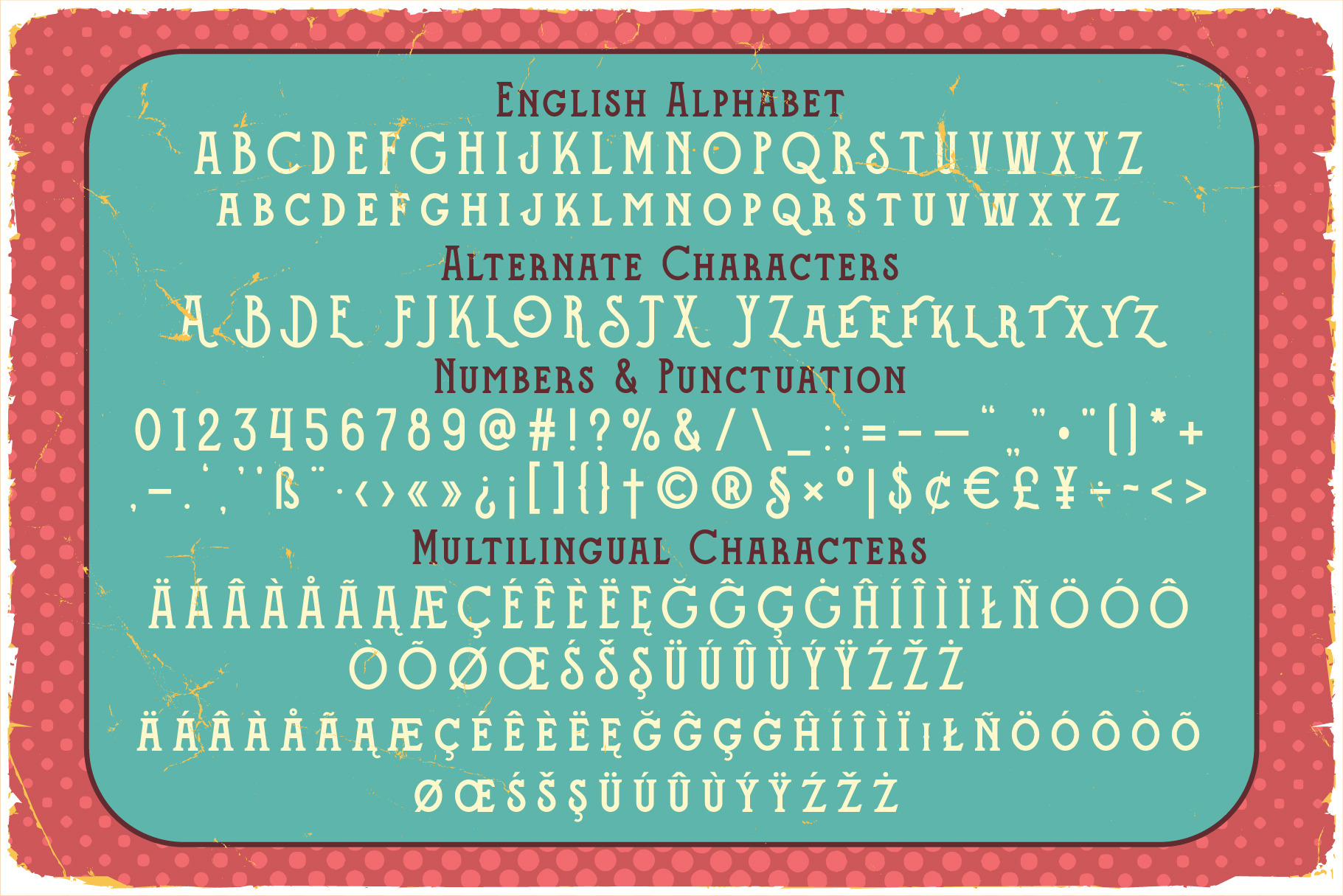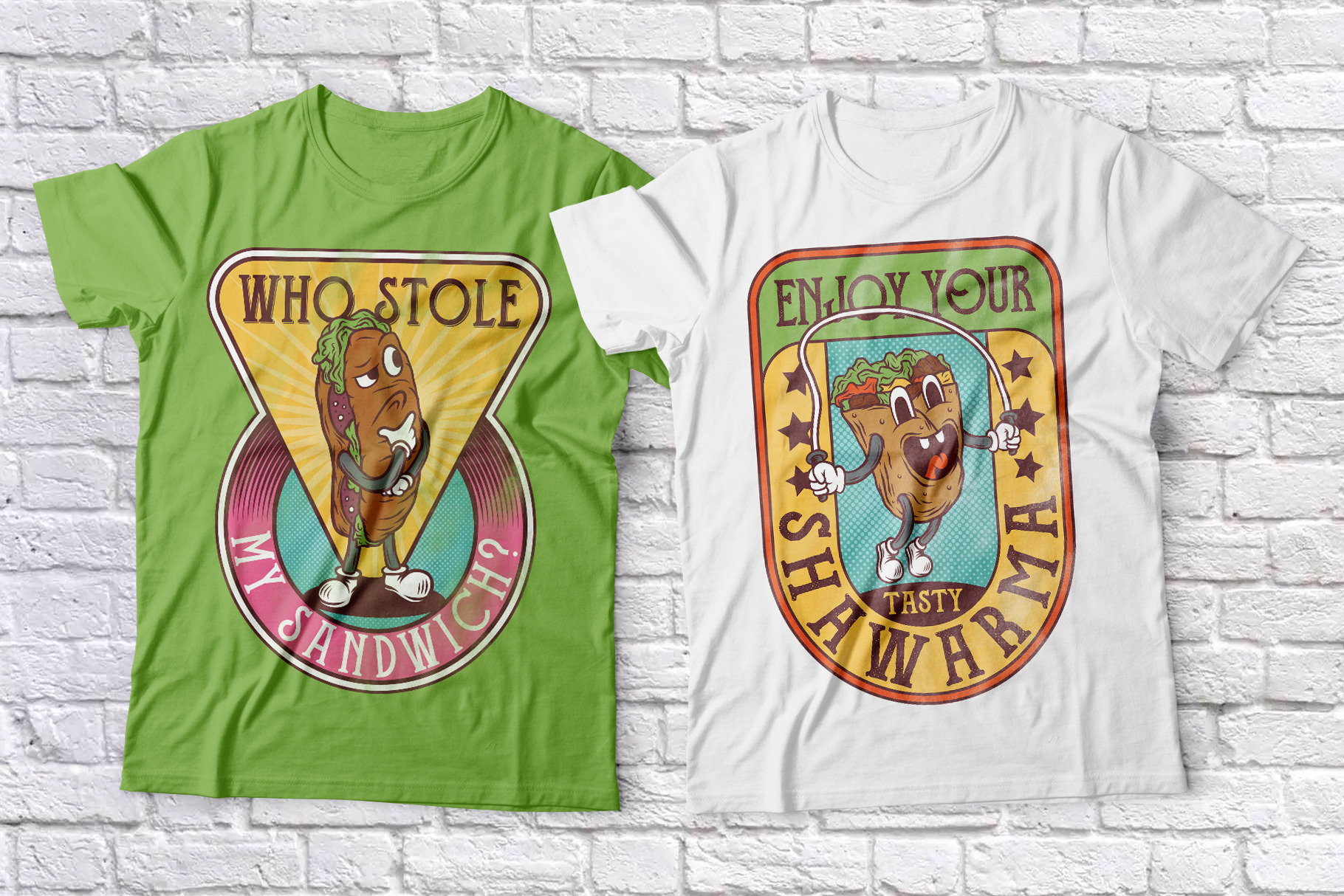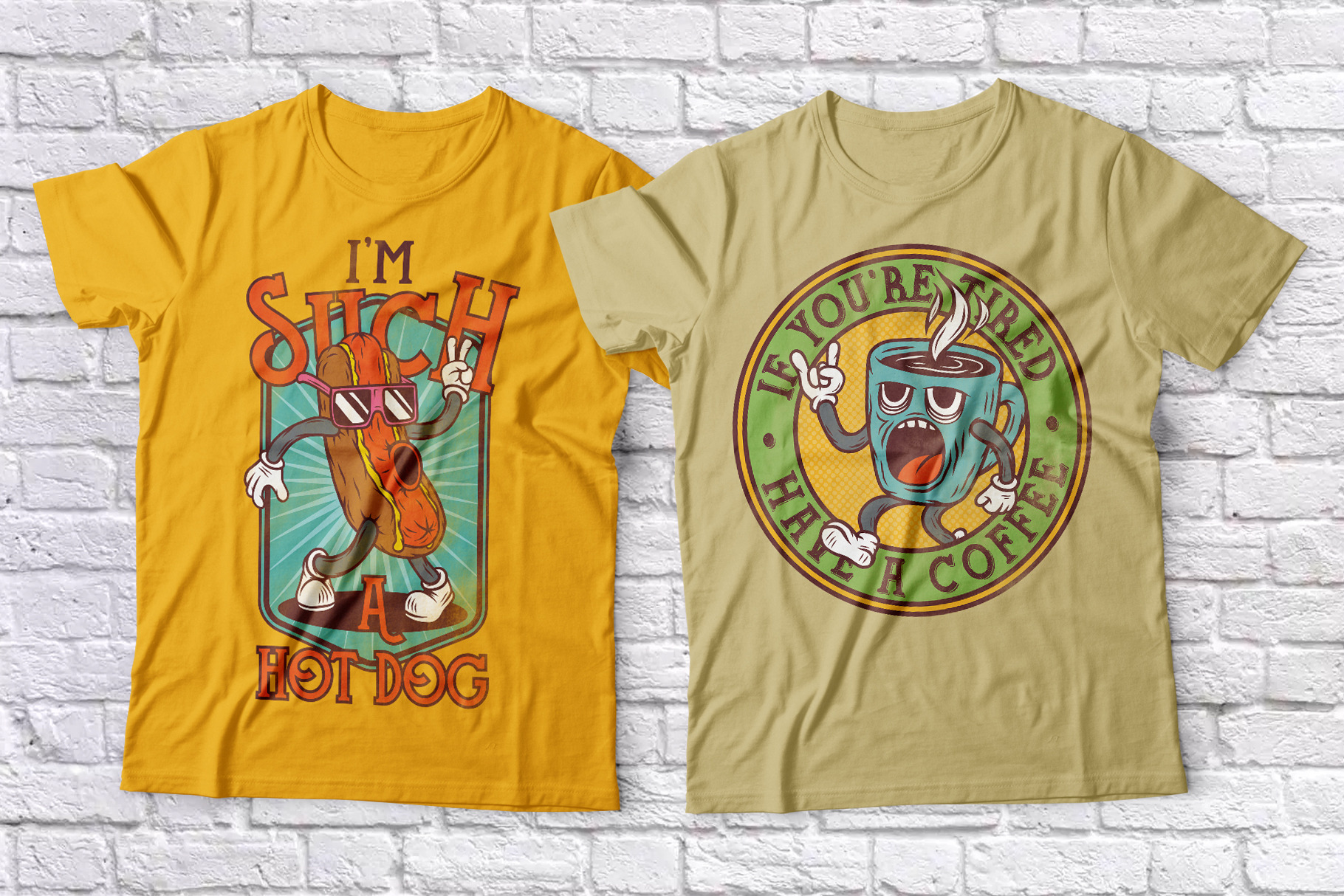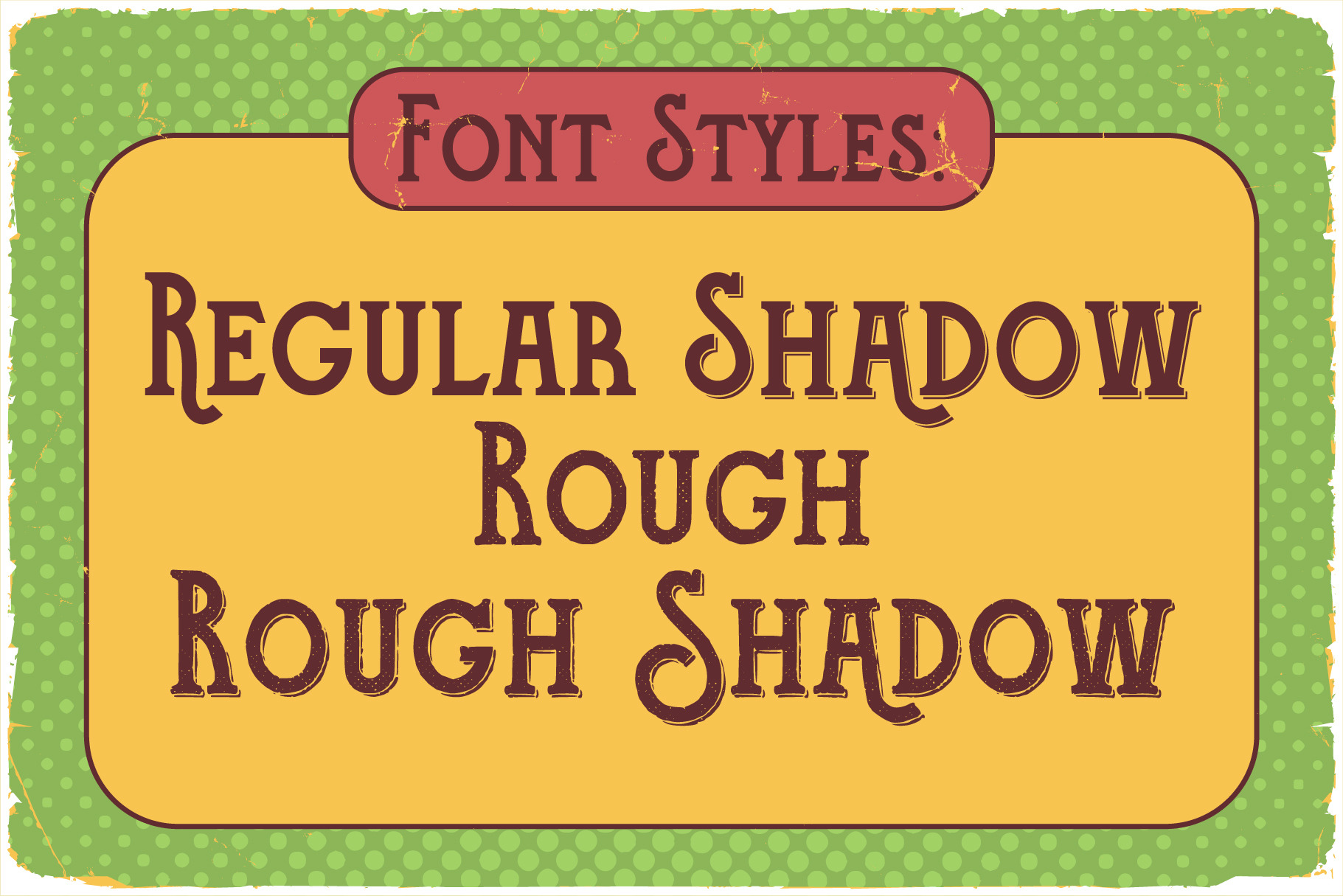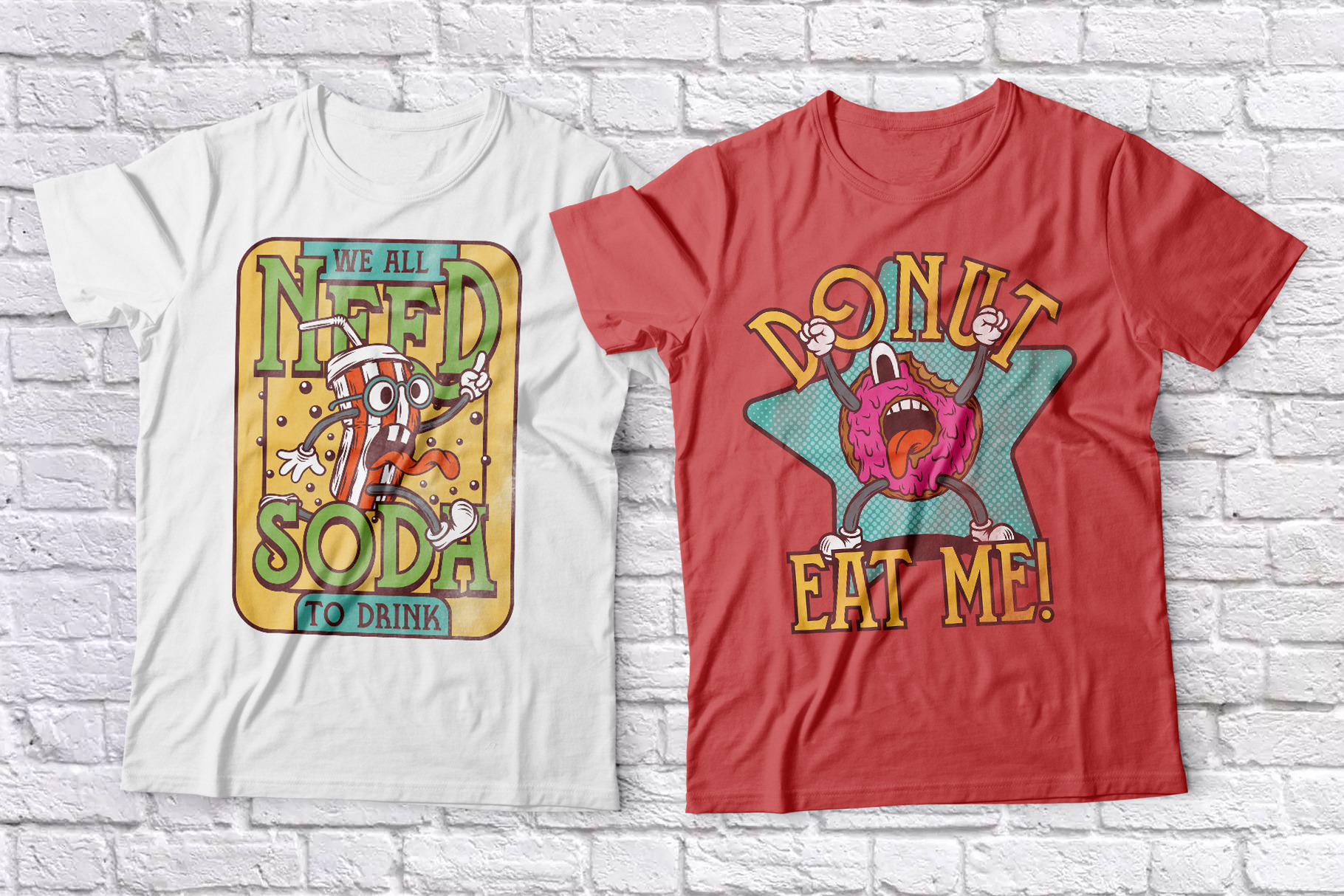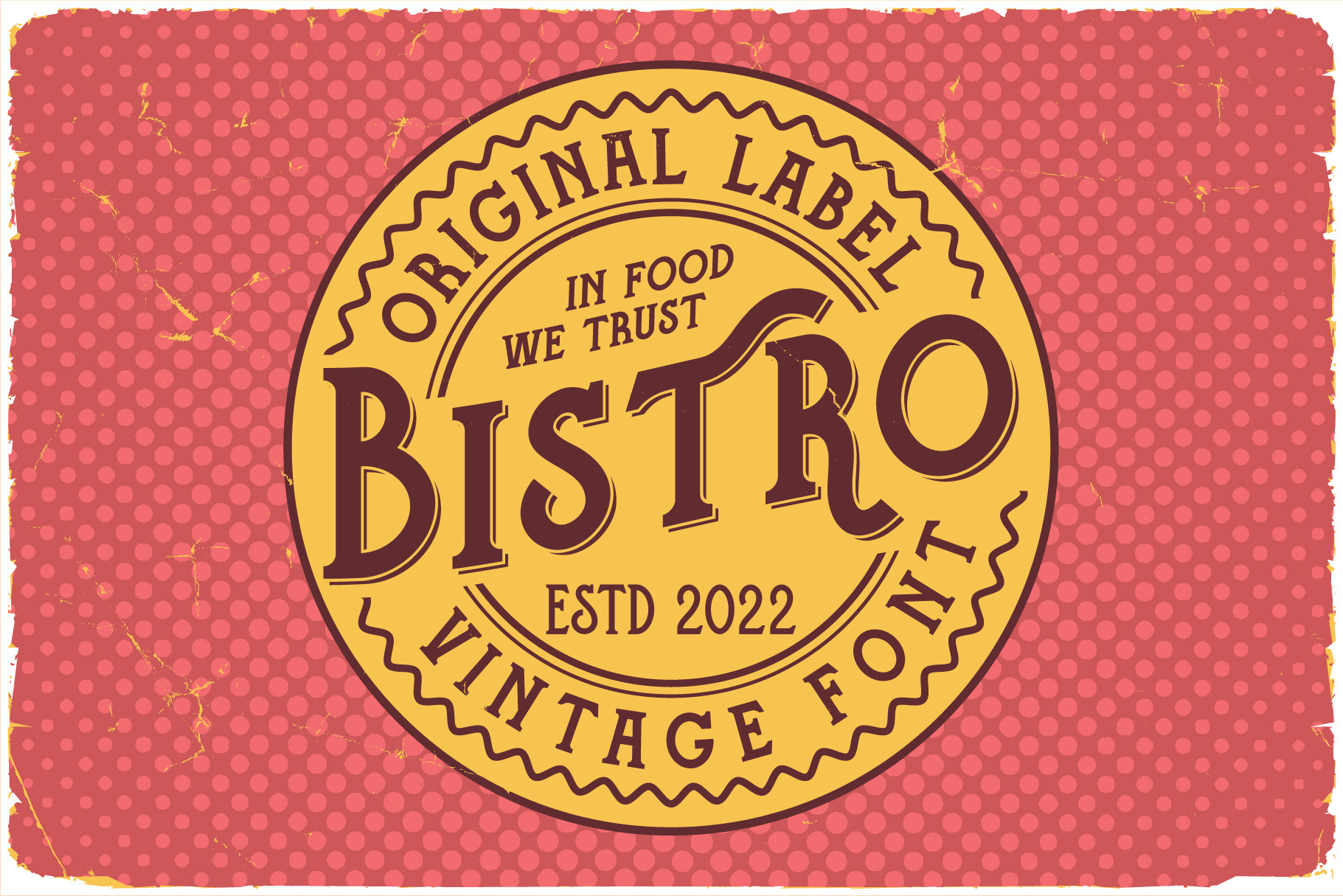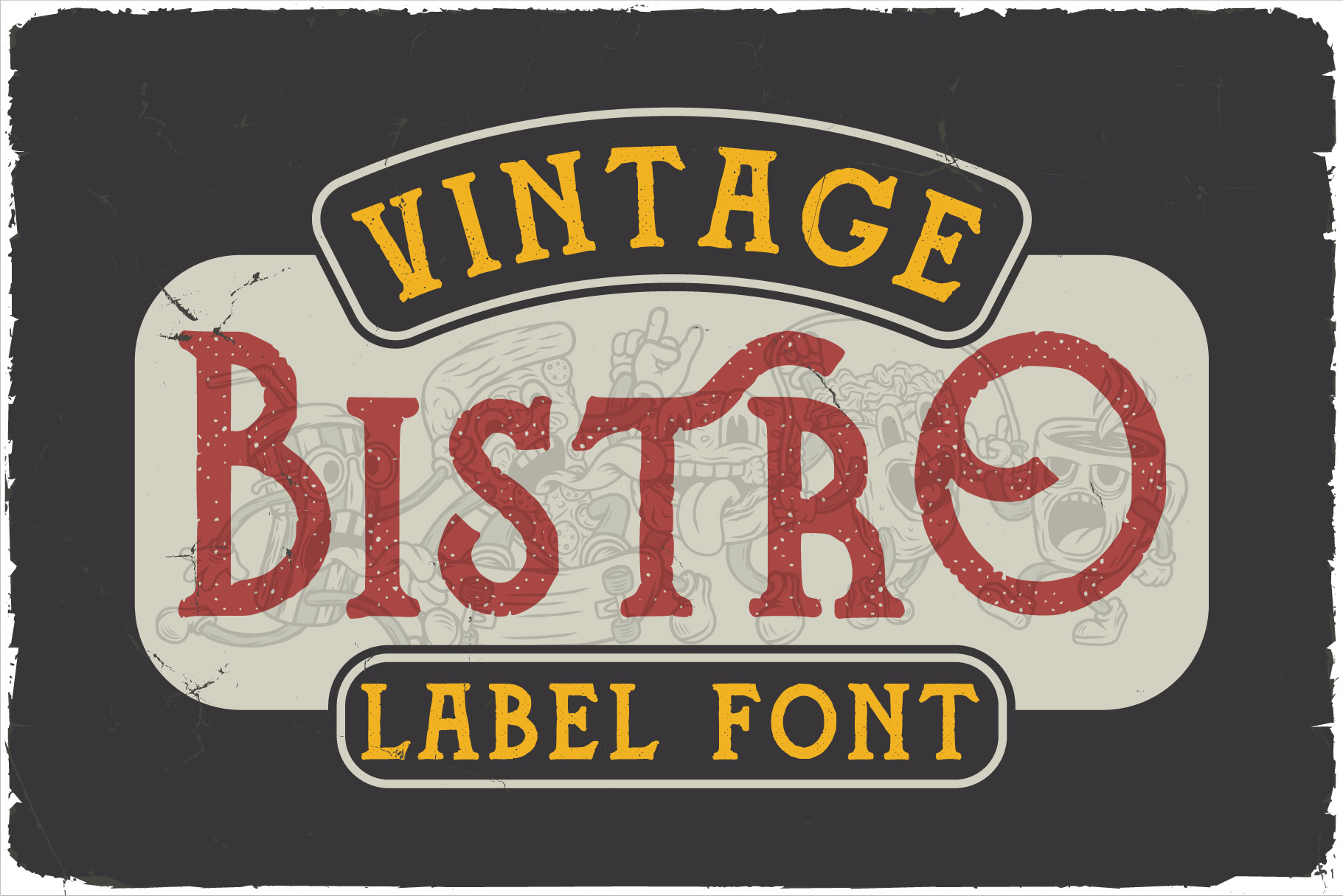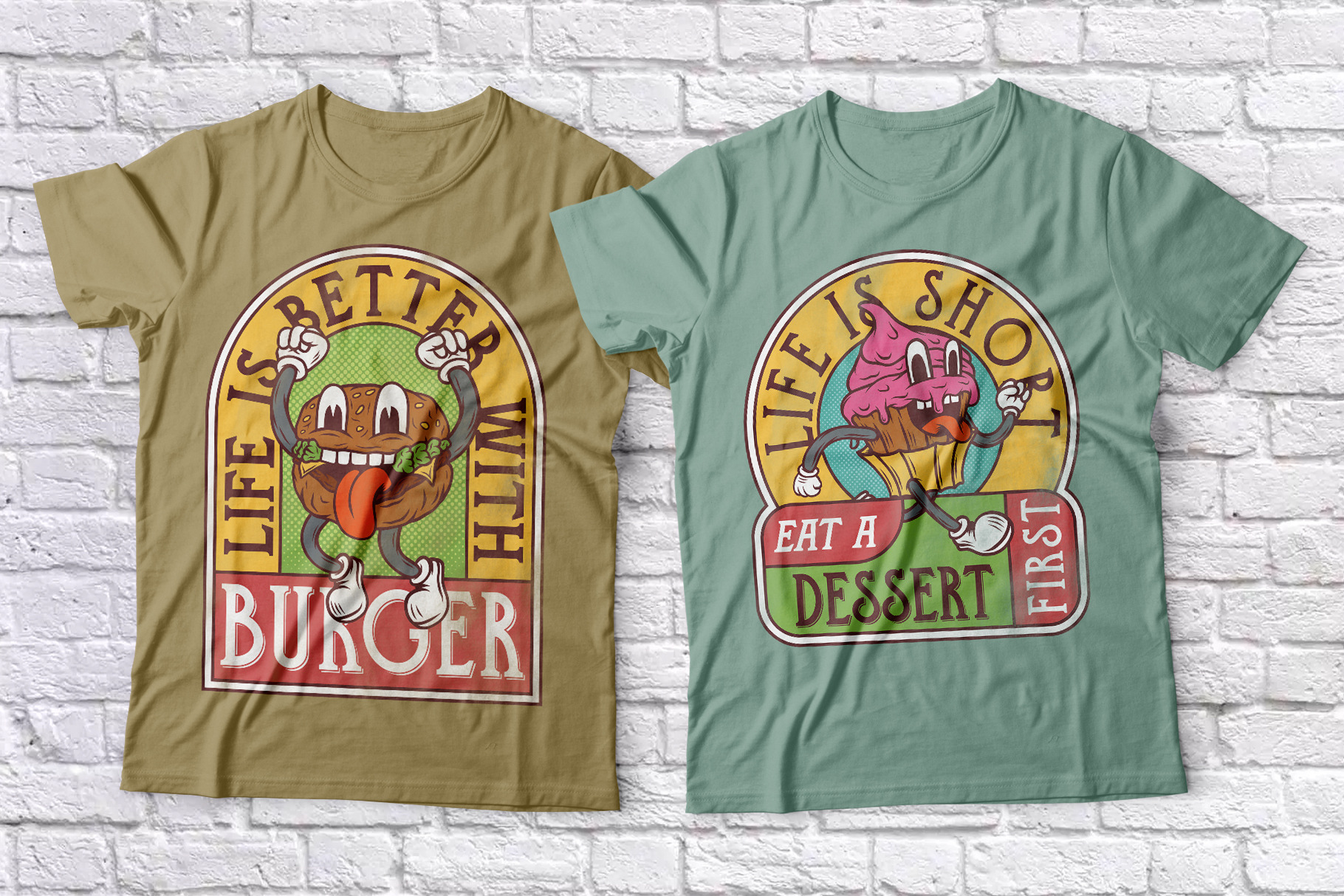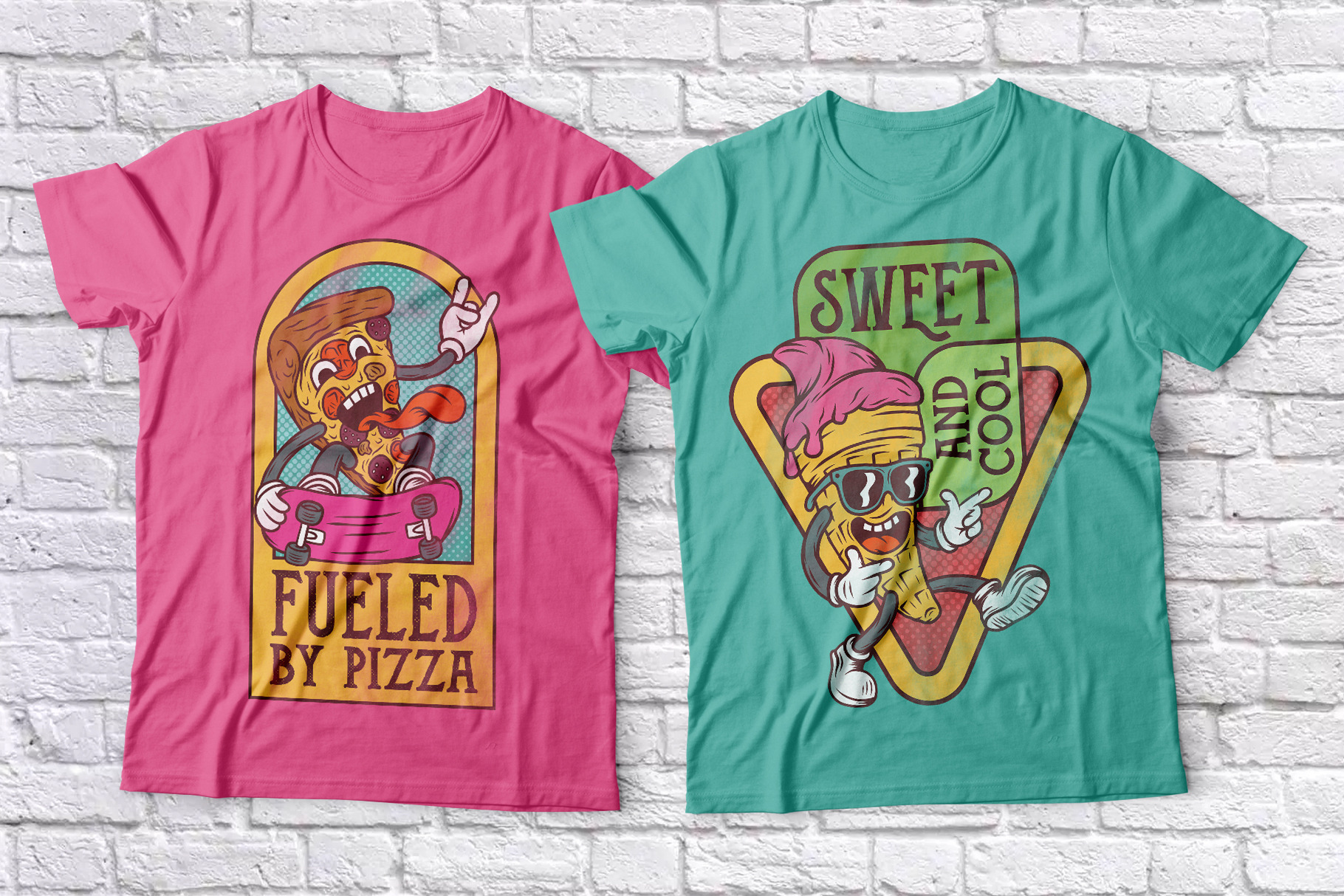
Introducing original label font named *Bistro*. This font has a wide languages support with west european characters (check out all available characters on previews). The font family has four styles: Regular, Shadow, Rough, Rough Shadow. This font will look good on any vintage styled designs like a poster, T-shirt, label, logo, etc. Features: - A lot of additional symbols and multilingual support. - OTF, TTF, WOFF and WOFF2 font files. - Ready ten t-shirt (or poster) designs in EPS10, hires JPG, PNG and SVG. - Editable AI (CC), EPS (CC) and PDF files for all designs. - Isolated illustrations from screenshots in EPS10, hires JPG and PNG (with transparent background). *I hope you like it. Thank you!* | Bistro Font and graphics | Vozzy Fonts & Graphocs